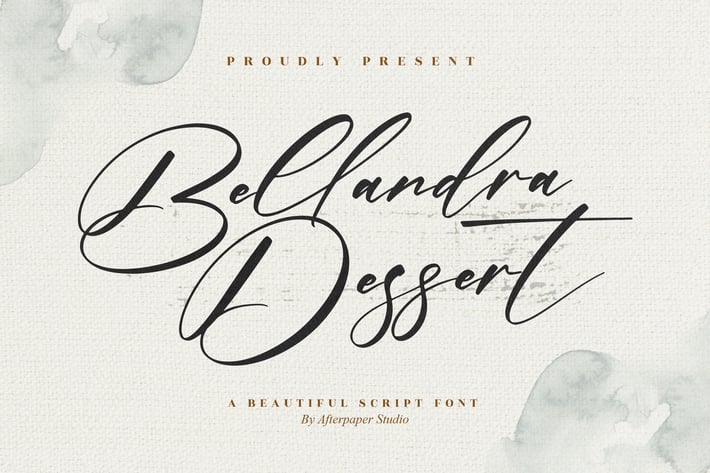
Bellandra Dessert Script Font
Bellandra Dessert is a beautiful and elegant script font designed to bring a touch of sophistication to any project. With its refined curves and stylish strokes, this typeface is ideal for invitations, logos, branding, and social media visuals. Perfectly balanced between modern calligraphy and timeless handwriting style, Bellandra Dessert enhances every design with grace and personality.
Font Features:
Elegant modern script style
Smooth natural flow for handwriting designs